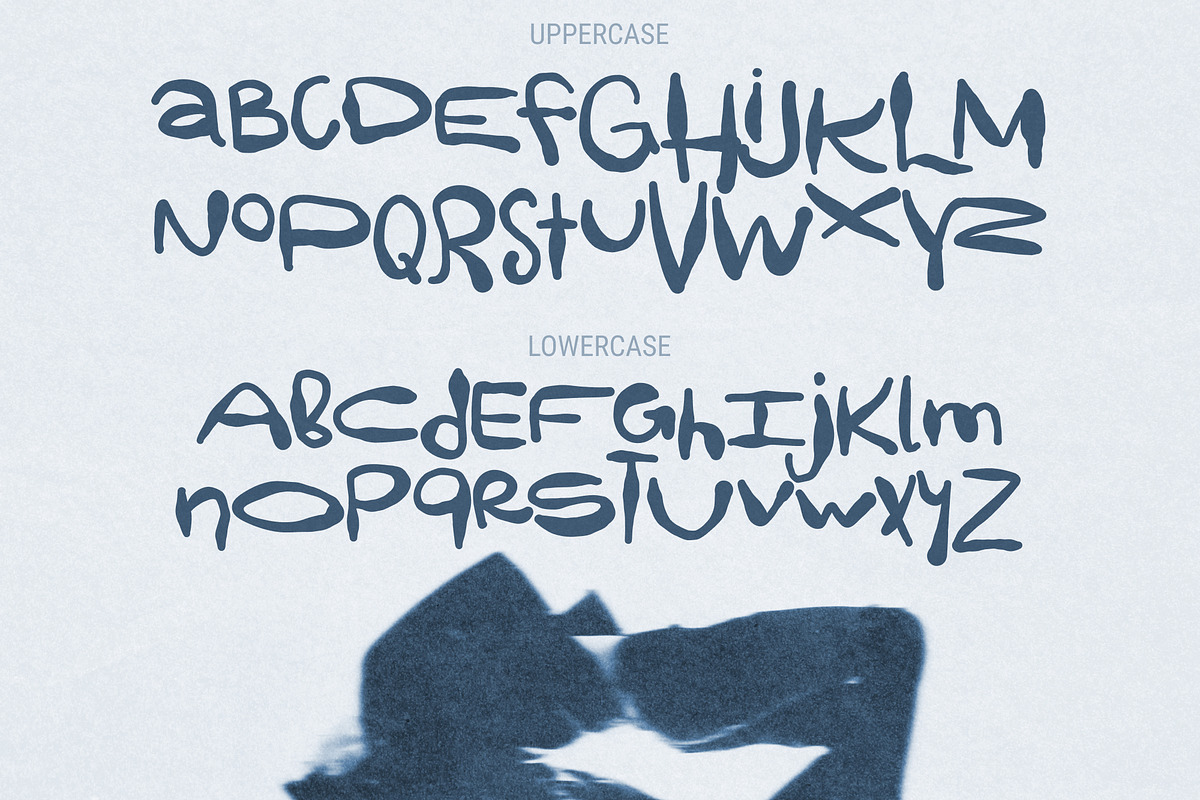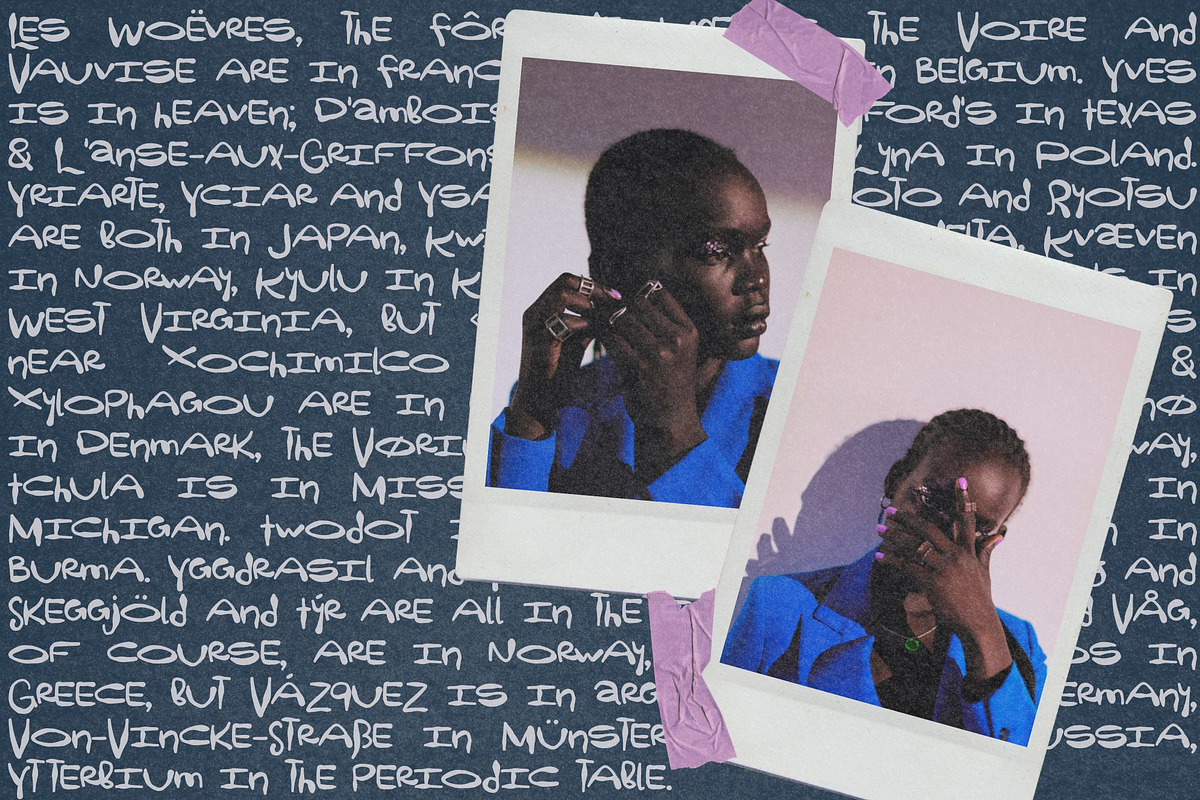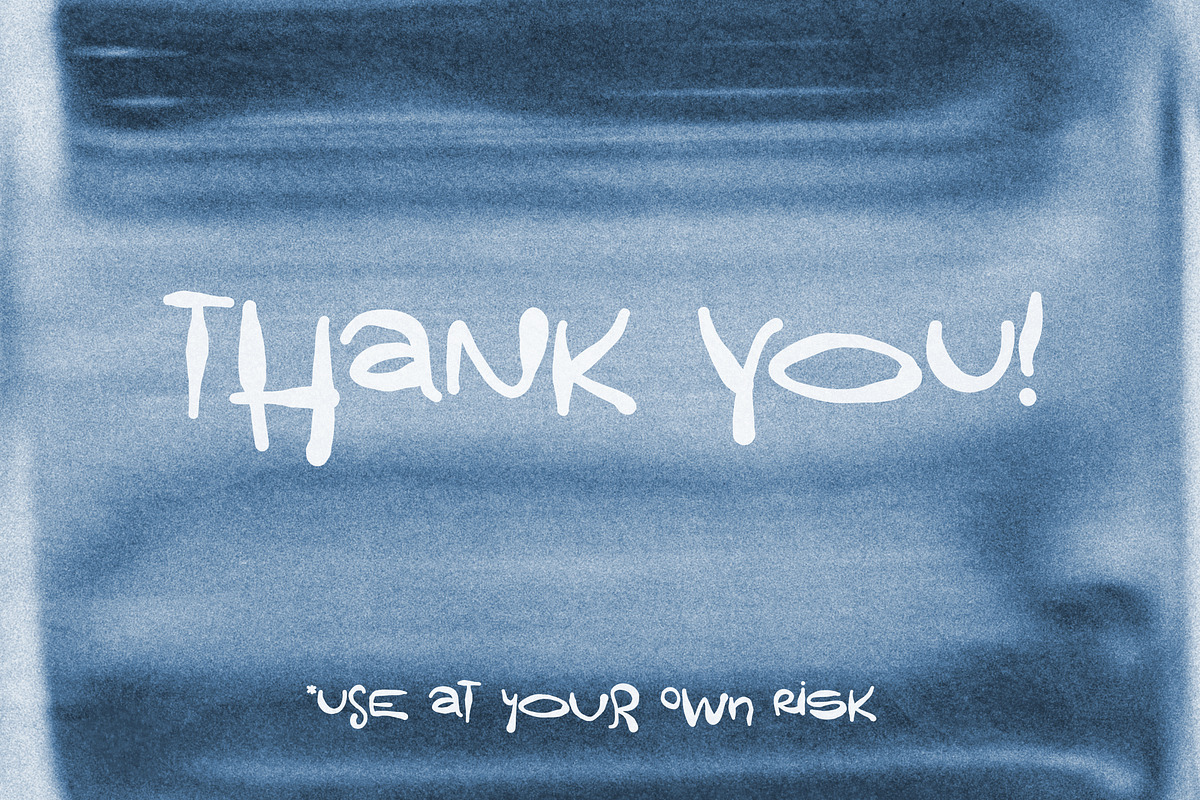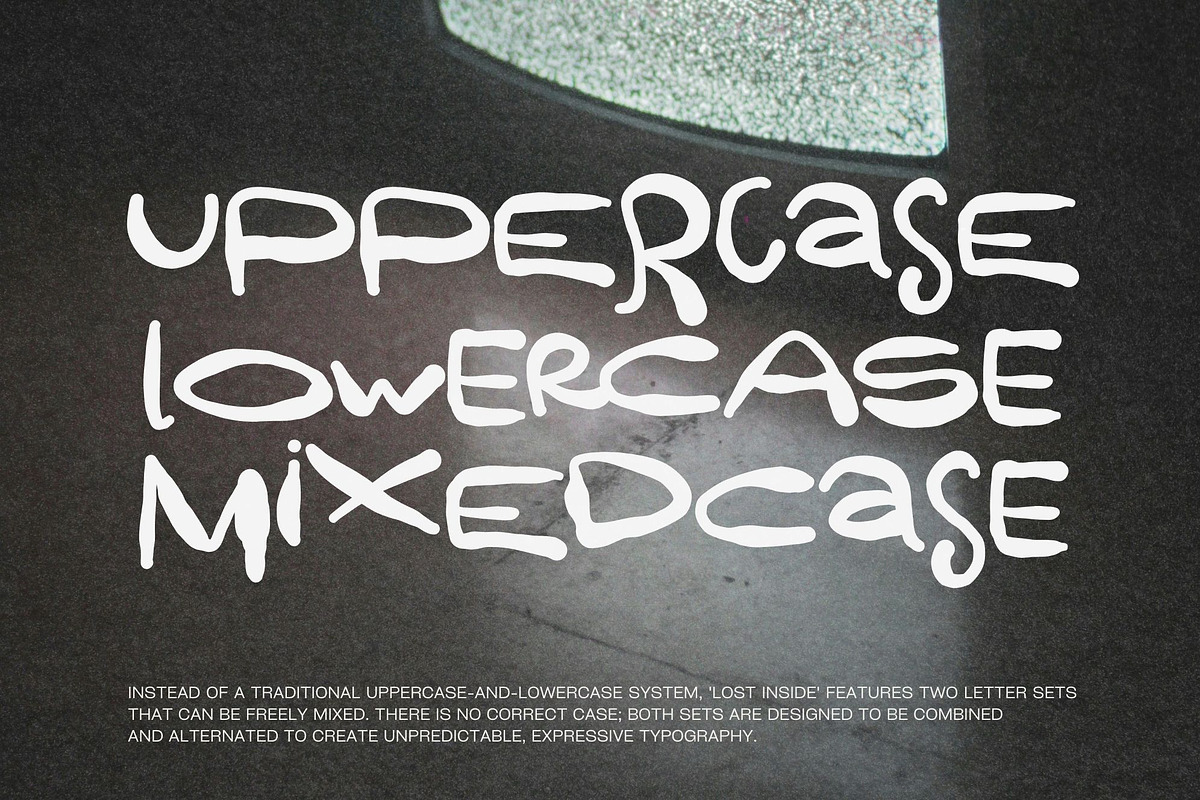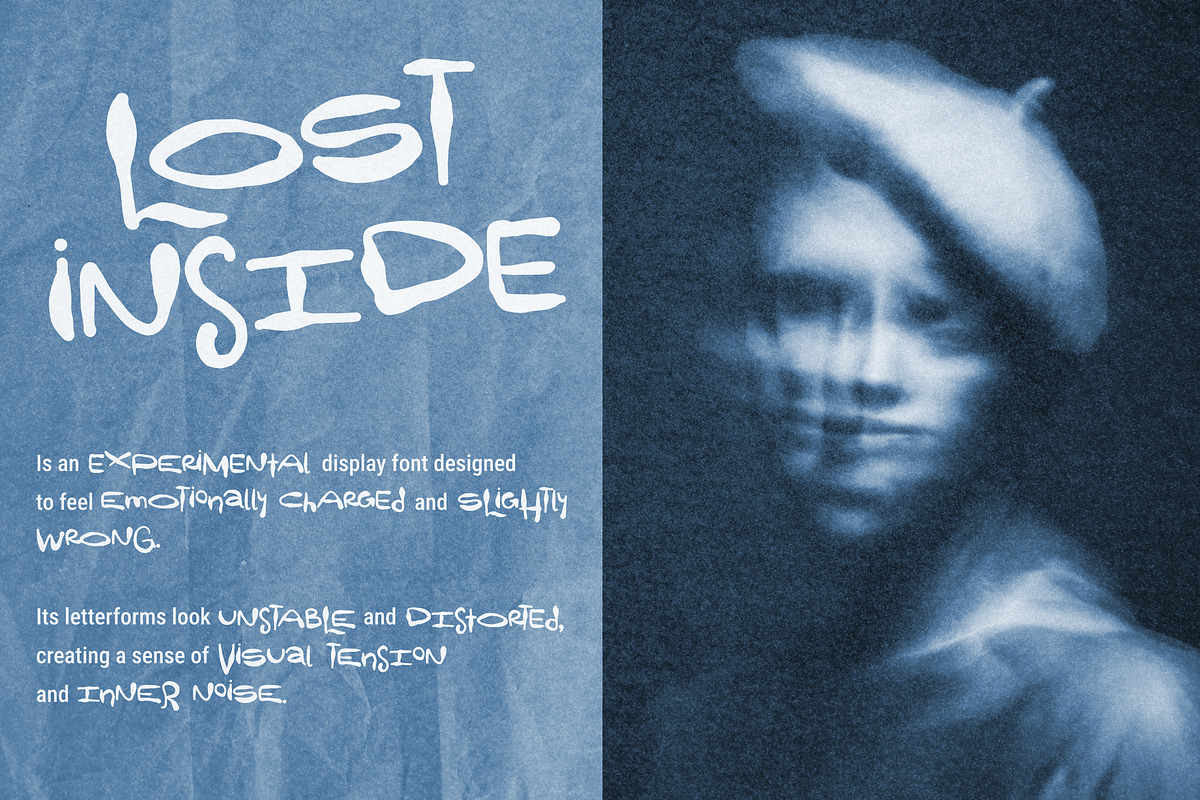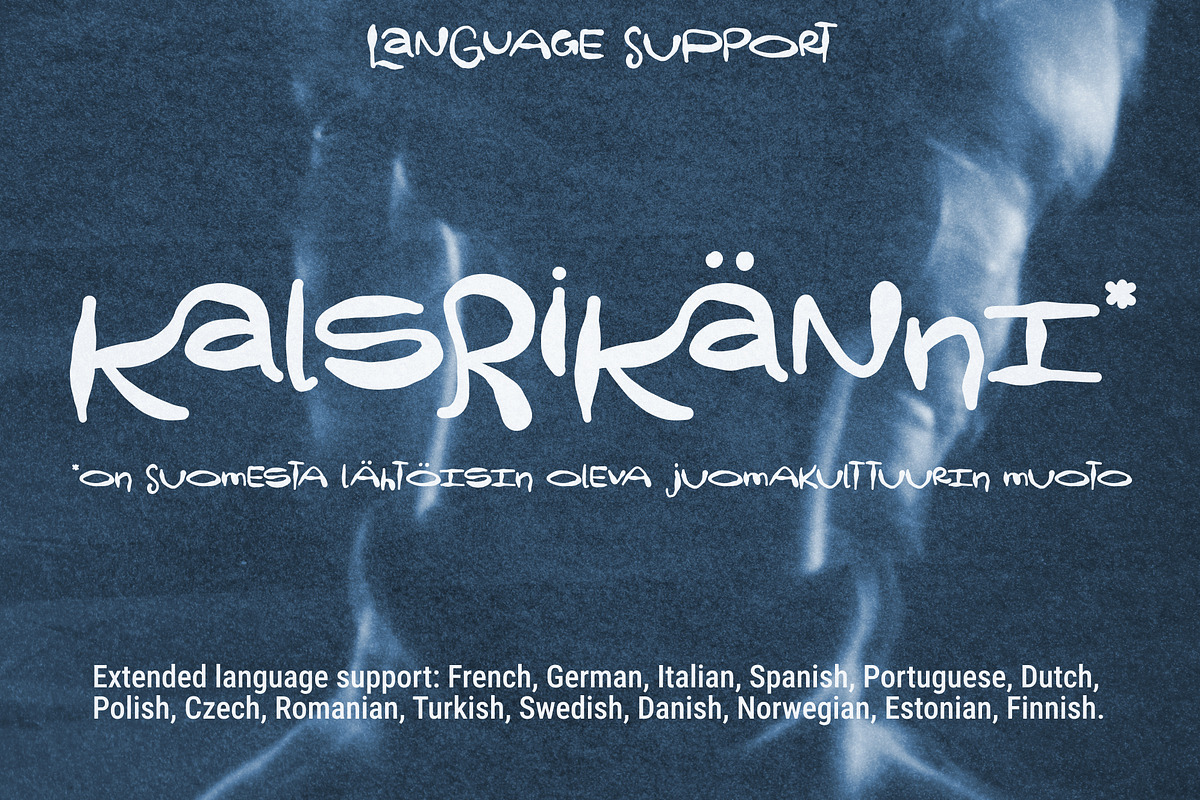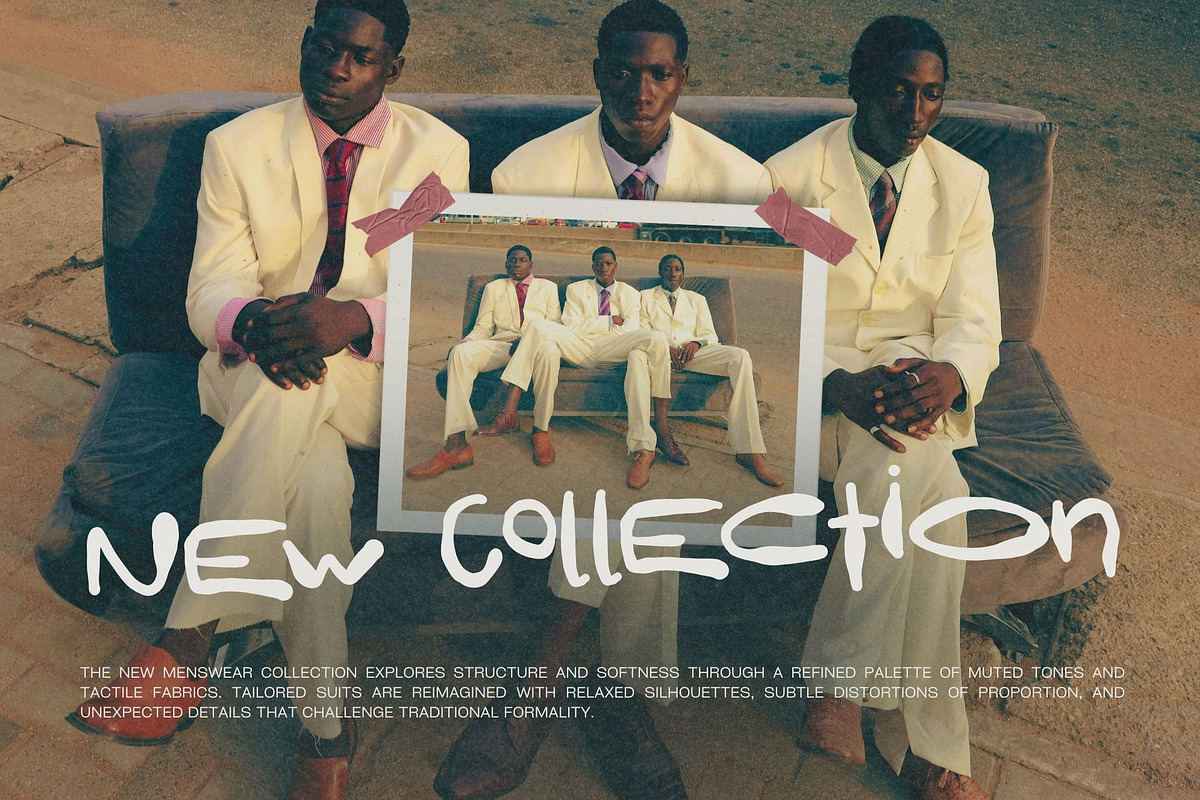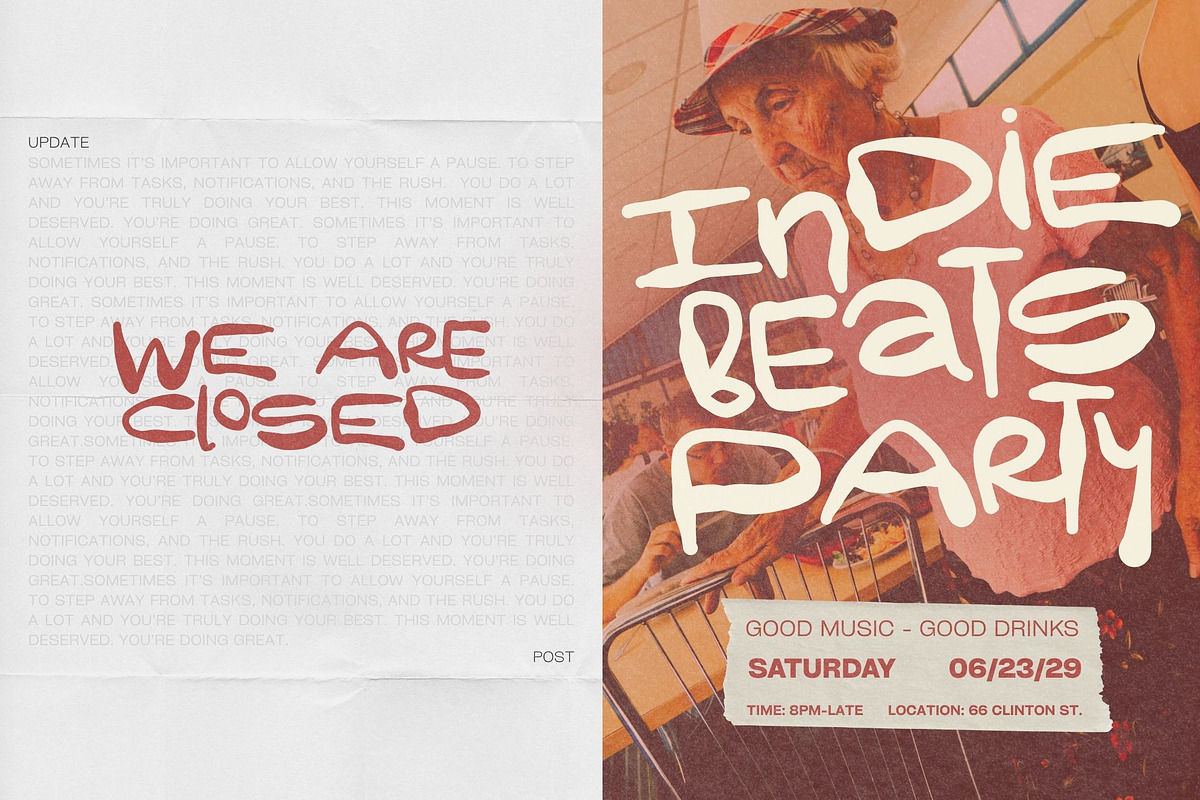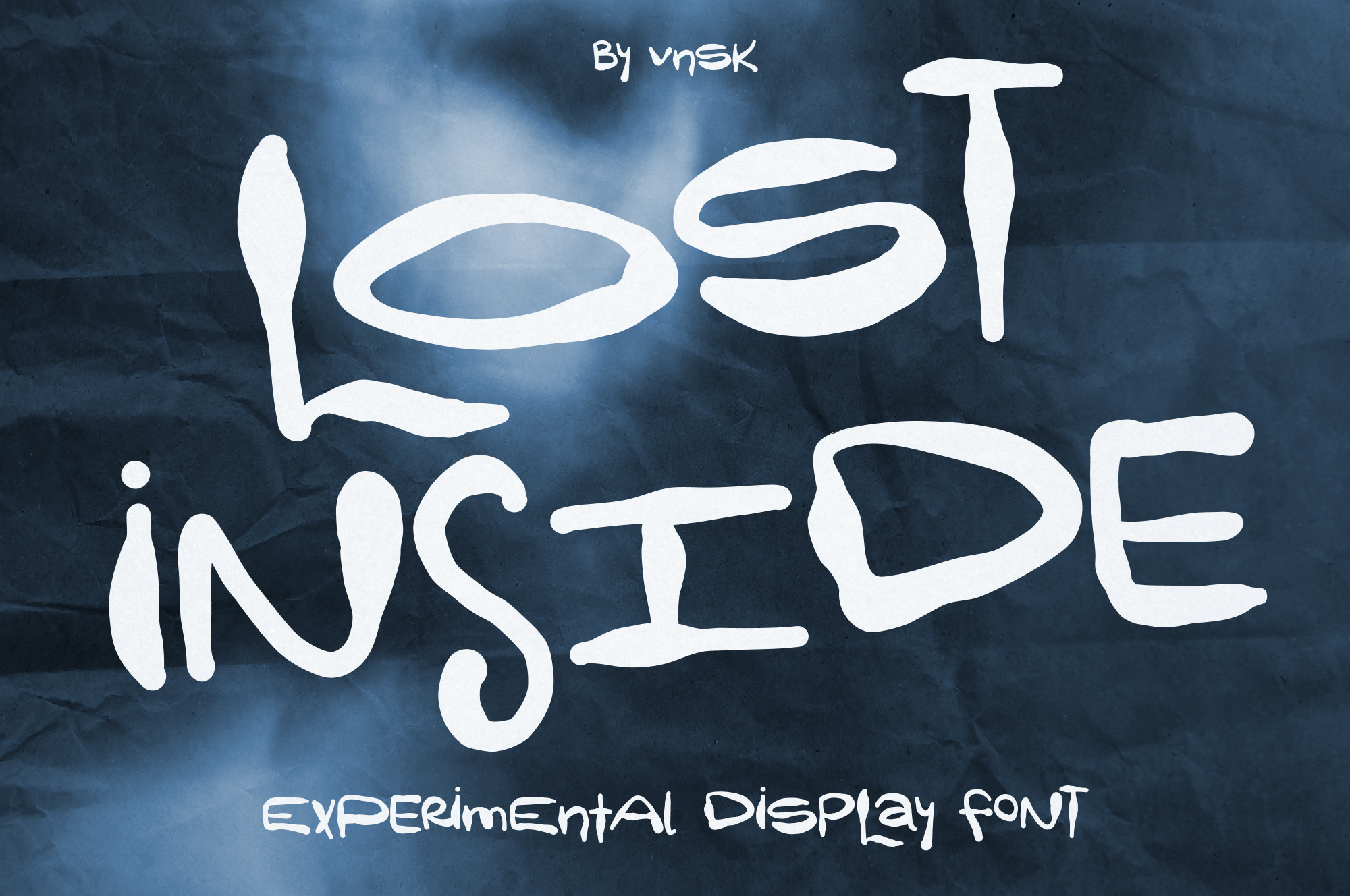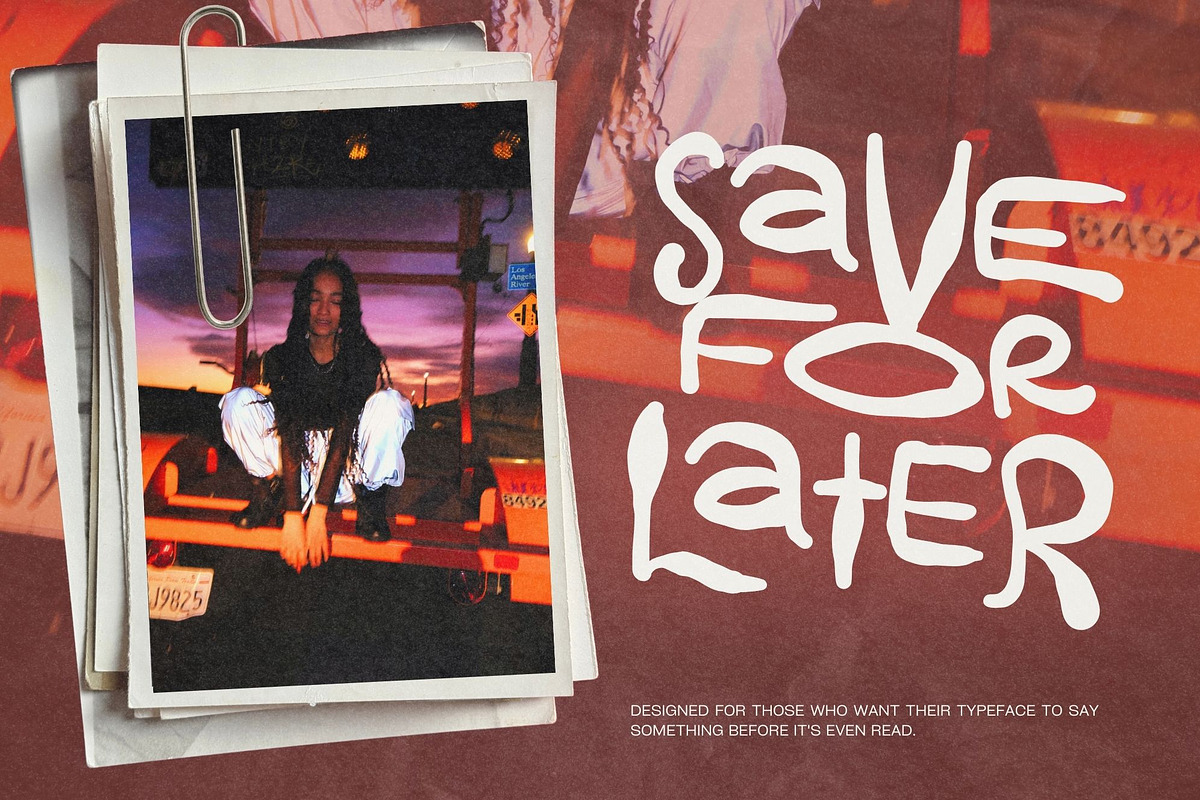
Lost Inside: Experimental Font
Lost Inside is an experimental display font designed to feel slightly wrong and emotionally charged. Its letterforms look unstable and distorted, creating a sense of visual tension and inner noise.
Lost Inside does not use a traditional uppercase and lowercase system. Instead, it includes two alternative sets of letterforms that can be mixed to create custom visual rhythms. Switching between cases allows you to experiment with structure, texture, and balance.
Lost Inside works best in bold, short statements, headlines, posters, and experimental compositions. It’s made for atmosphere, attitude, and emotional impact. Perfect for those who want their typeface to say something before it's even read.
✦Features:
Uppercase & lowercase letters
✦Perfect For:
Experimental graphic design
Art posters and zines
Music covers and band visuals
Fashion editorials
Conceptual branding
Contemporary collage